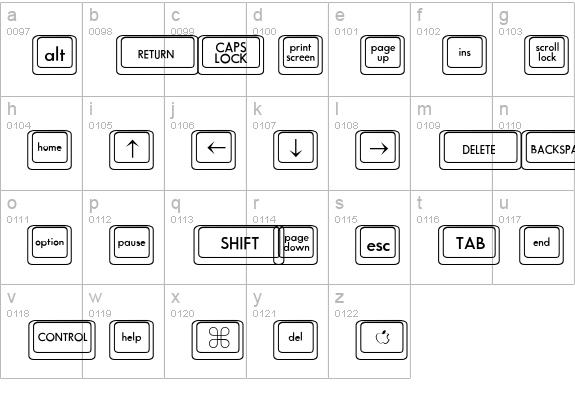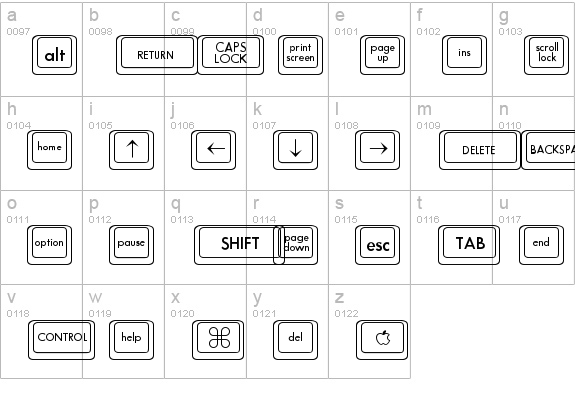
KCaps Font Details
Introducing KCaps, a stylish and versatile font that is sure to elevate your designs to new heights. With its beautifully crafted letterforms and sleek lines, KCaps effortlessly combines elegance with a touch of modernity. This font is perfect for a wide range of design projects, from logos and branding materials to social media graphics and website designs. Its clean and crisp appearance makes it highly legible, ensuring that your message is always clear and impactful. One of the best features of KCaps is that it is absolutely free. Yes, you read that right. This incredible font is freely available to download at FontsMarket.com. Now you can access this font without any limitations, allowing you to explore its full potential and unleash your creativity without breaking the bank. Whether you're a professional designer or a casual hobbyist, KCaps will be your go-to font for all your creative endeavors. Its versatility and timeless appeal make it suitable for any project, whether it's a sophisticated corporate presentation or a fun and playful invitation. So why wait? Download KCaps today from FontsMarket.com and experience the freedom of this extraordinary font. Let your imagination run wild and create stunning designs that will leave a lasting impression. KCaps is here to take your design game to the next level, and it's all yours for free.